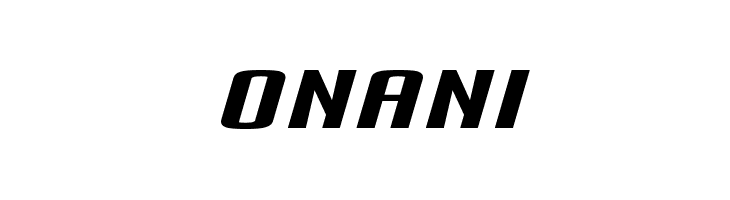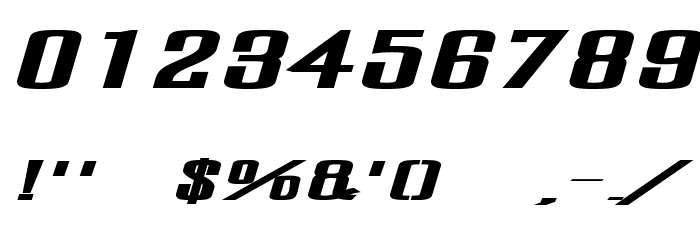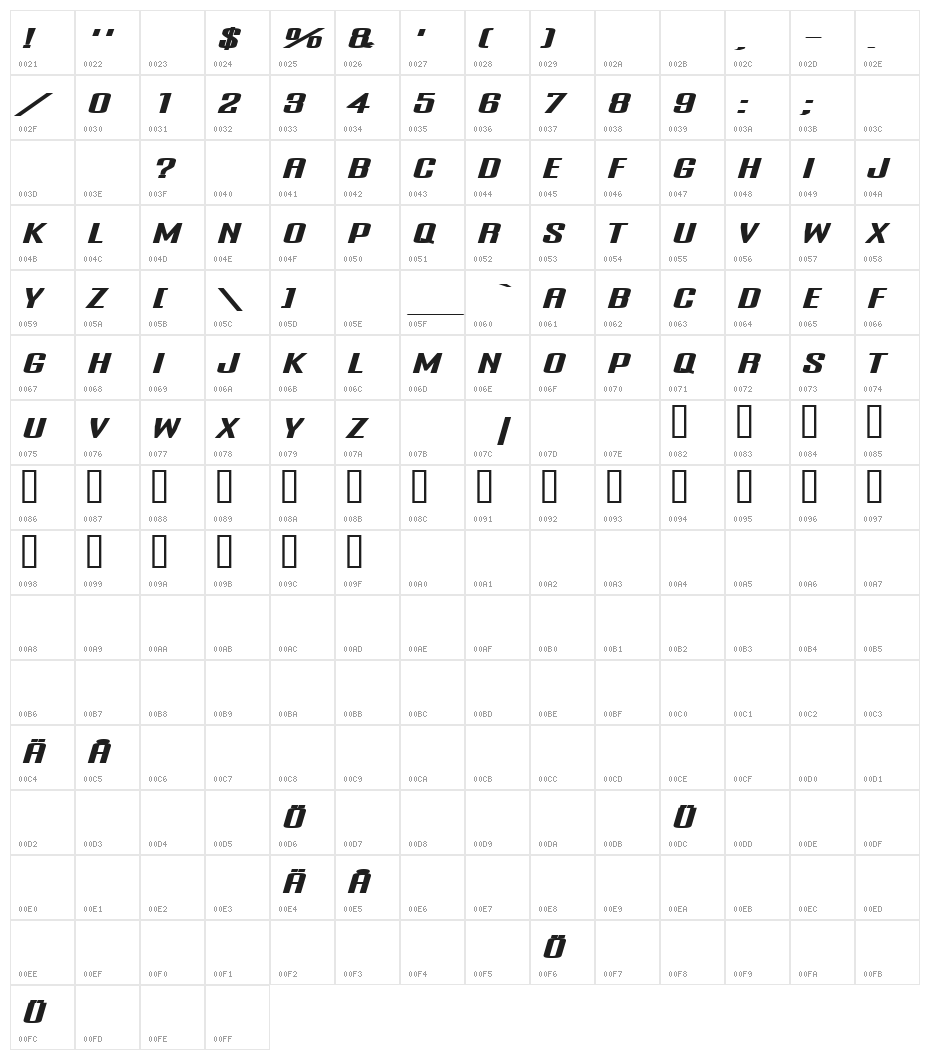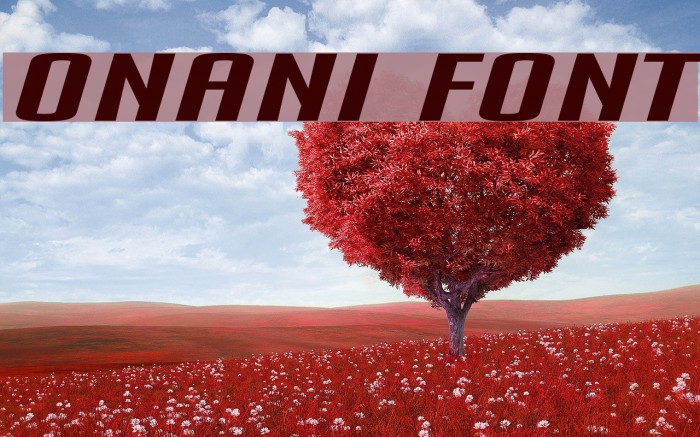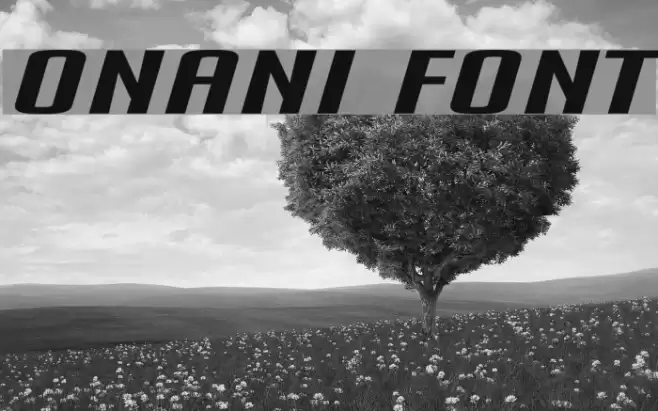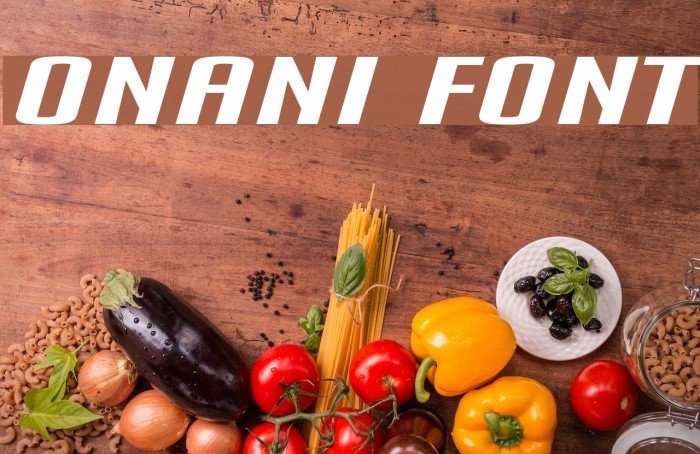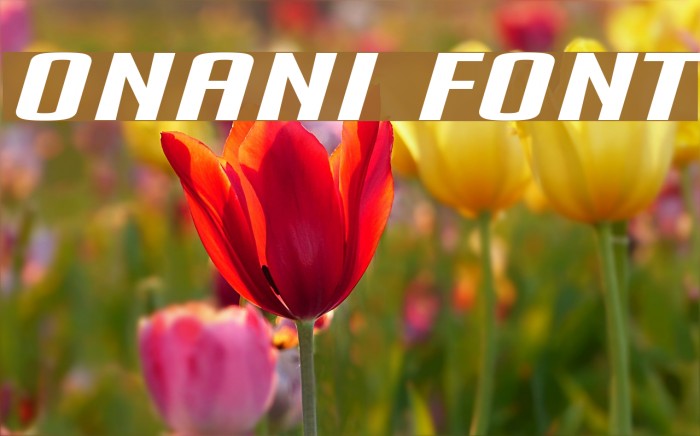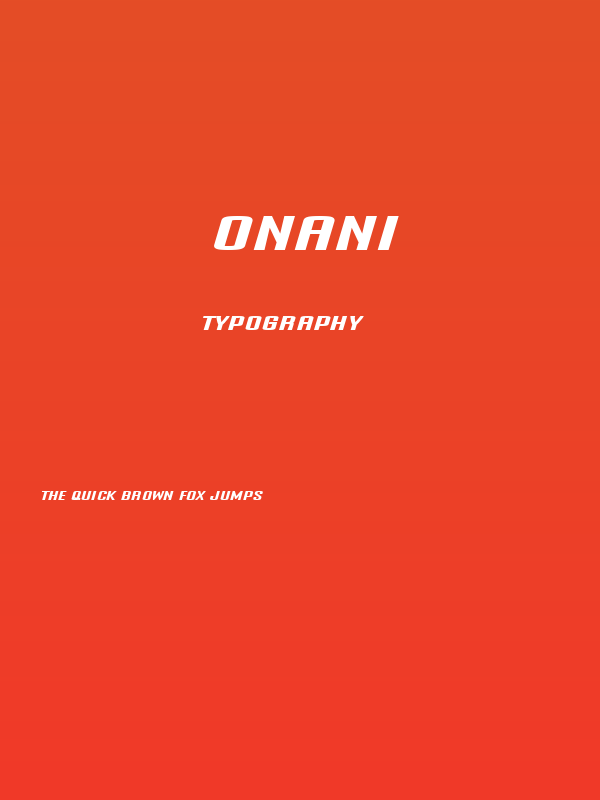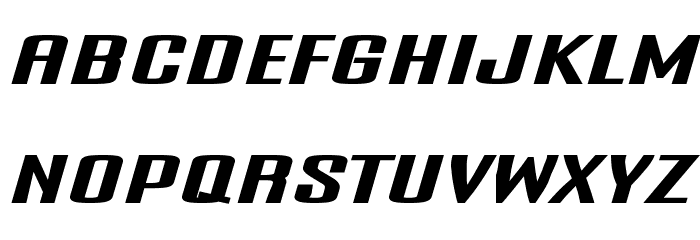
Onani Font
Onani Description
This font features a bold and dynamic style with a strong slant, giving it a sense of motion and energy. The characters are wide and have a slightly condensed appearance, which enhances their boldness. The strokes are thick, providing high contrast and making the letters stand out prominently. The design is modern and sleek, suitable for projects that require a strong visual impact. The uppercase and lowercase letters maintain consistency in style, with sharp angles and clean lines. The numerals and special characters follow the same design principles, ensuring uniformity across all elements.
| Proposed Projects | Ideal for sports branding, dynamic posters, automotive advertisements, and any project needing a bold, energetic typeface. |